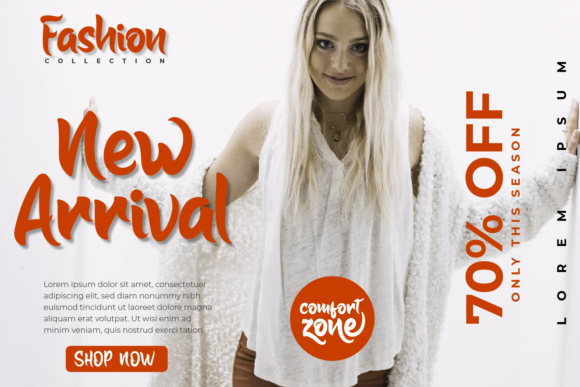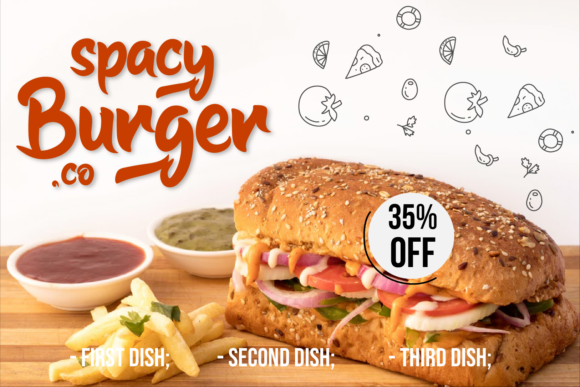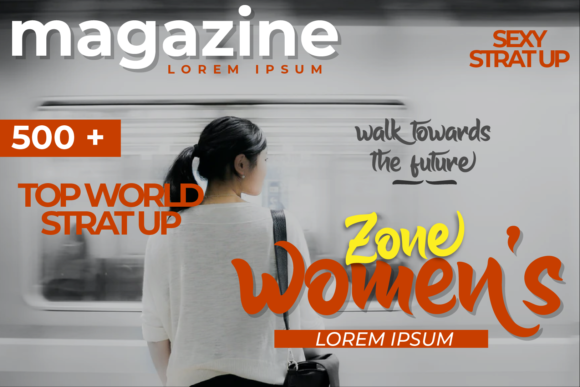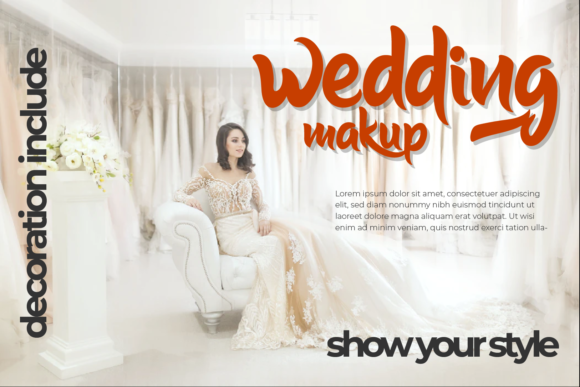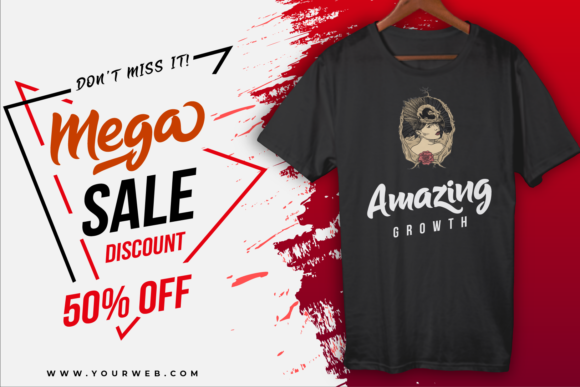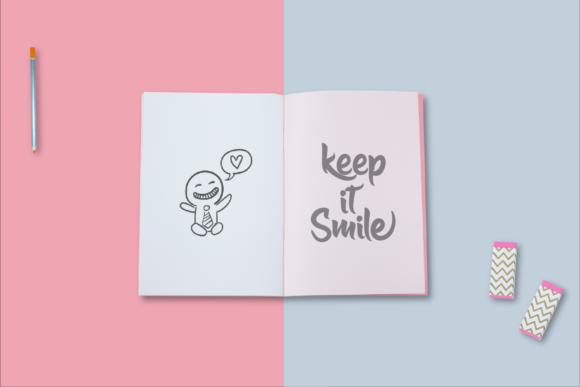
Discover the Unique Charm of Entog Font: Elevate Your Designs with its Distinct Style
In the world of typography, fonts play a crucial role in conveying messages, evoking emotions, and creating lasting impressions. For designers, crafters, and anyone looking to add a personal touch to their projects, finding the right font can be a game-changer. This is where Entog Font comes into play – a thick lettered and flowing handwritten font that is about to revolutionize your design endeavors. With its incredibly distinct and timeless style, Entog Font is poised to become your new favorite companion in creating spectacular designs.
What Makes Entog Font Stand Out?
Entog Font boasts a unique combination of thickness and fluidity, making it stand out in the crowded world of typography. Its letters are carefully crafted to exude a sense of elegance and robustness, perfect for projects that demand a touch of sophistication and personality. Whether you’re working on a branding project, crafting a heartfelt invitation, or designing a captivating poster, Entog Font is versatile enough to make your work shine.
The Characteristics of Entog Font
• Thick Lettered: The boldness of Entog Font’s letters ensures that your message is conveyed with impact and assertiveness, making it perfect for headlines and titles.
• Flowing Handwritten Style: The fluidity and natural flow of Entog Font give it a warm, personal feel, ideal for creating a connection with your audience.
• Distinct and Timeless Style: Entog Font’s unique style transcends fleeting trends, ensuring that your designs remain relevant and appealing for years to come.
Why Choose Entog Font for Your Projects?
There are countless reasons why Entog Font should be your go-to choice for your next project. Here are a few:
• Versatility: Entog Font can be used across a wide range of projects, from digital content to print materials, without losing its charm.
• Emotional Connection: The warmth and personality infused in Entog Font help create an emotional connection with your audience, making your message more relatable and memorable.
• Easy to Read: Despite its boldness, Entog Font maintains excellent readability, ensuring that your message is communicated clearly and effectively.
How to Use Entog Font Effectively in Your Designs
To make the most out of Entog Font, consider the following tips:
• Pair it with Simplicity: Let Entog Font be the centerpiece of your design by pairing it with simpler backgrounds or fonts, allowing its unique style to shine.
• Experiment with Colors: Don’t be afraid to play with different colors to find the perfect match that enhances Entog Font’s characteristics and suits your project’s theme.
• Consider the Context: Think about the message you want to convey and adjust the size, placement, and style of Entog Font accordingly to maximize its impact.
Entog Font is more than just a typeface – it’s a design companion that can elevate your projects to new heights. Its unique blend of boldness, fluidity, and timelessness makes it an invaluable asset for designers and crafters looking to leave a lasting impression. By incorporating Entog Font into your design toolkit, you’ll unlock new possibilities for creating stunning, memorable designs that resonate with your audience. So why wait? Fall in love with Entog Font’s distinct style and let it guide you in crafting spectacular designs that speak volumes.
Whether you’re a seasoned designer or a crafting enthusiast, Entog Font is ready to transform your creative process. Explore its potential, unleash your creativity, and witness how this remarkable font can redefine your design journey.